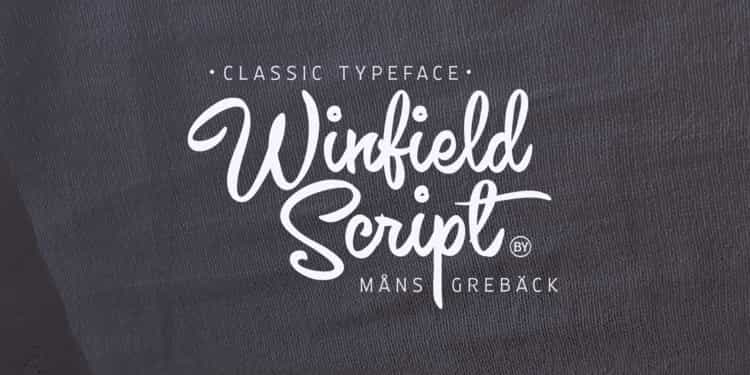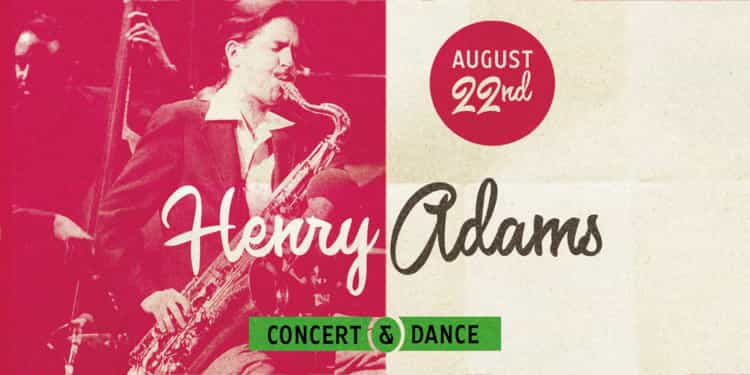
This font is classified as traditional handwritten fonts, it is outdated but it is suitable for various uses. The font relates to mid-century advertisements and logotypes; which give any project it a happy go lucky feel. This typeface was designed by Måns Grebäck in 2019 The style of this typeface is really creative.